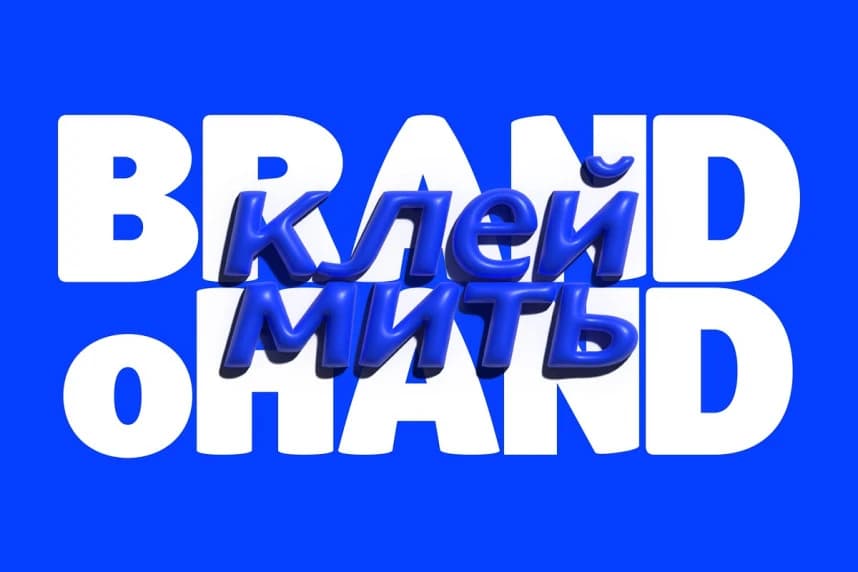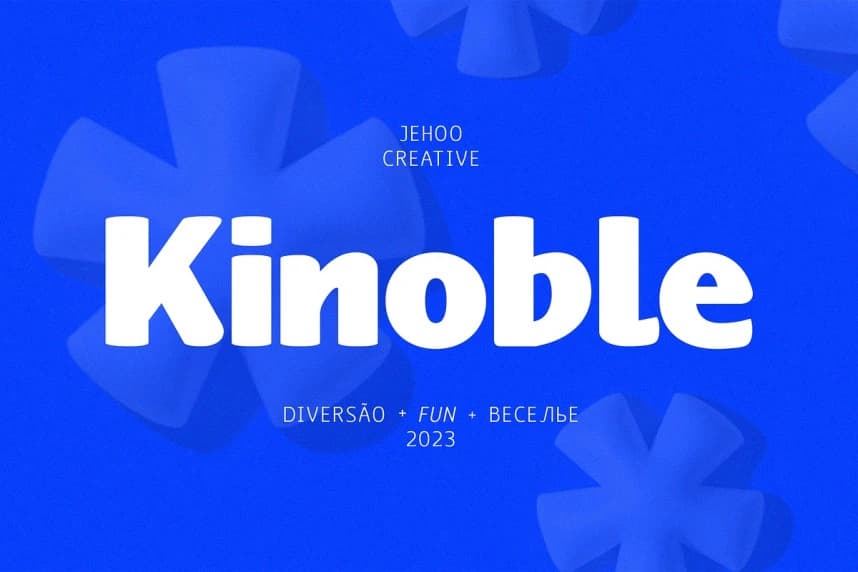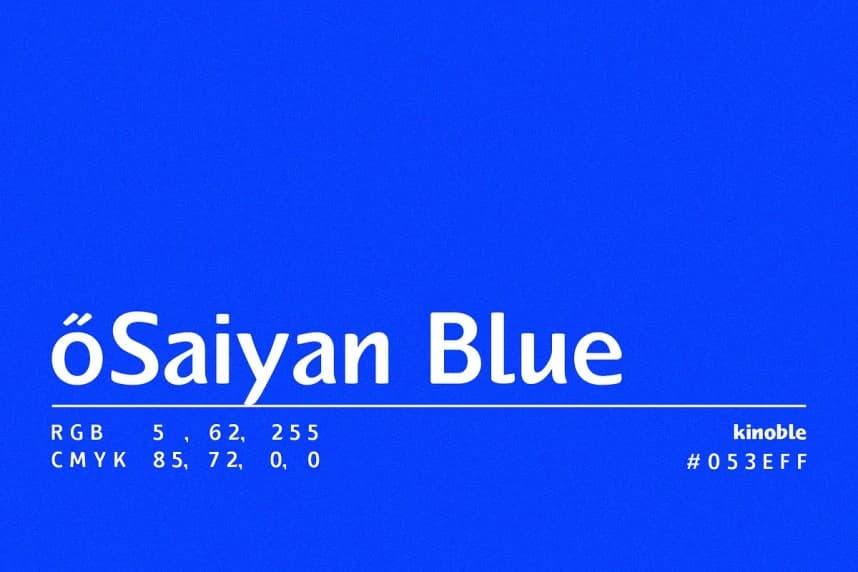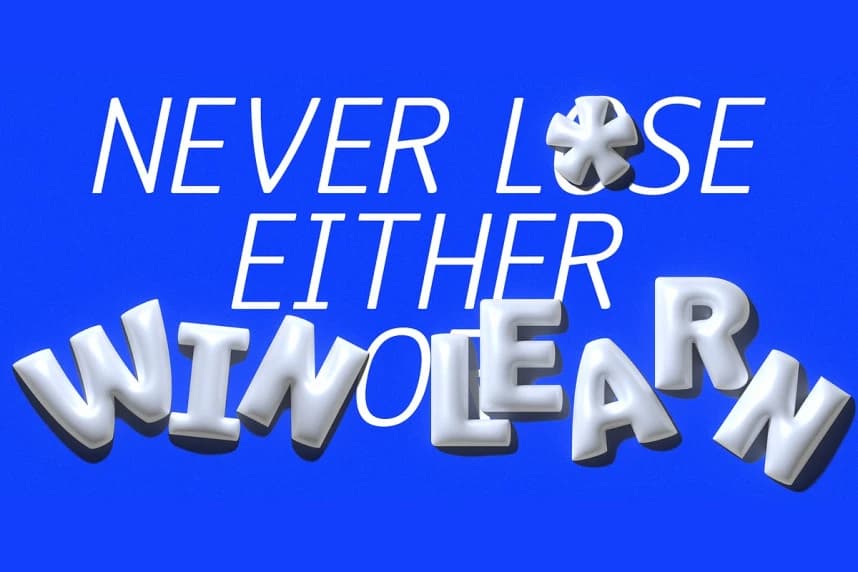
Kinoble Font is a font that combines the clean look of sans-serif with a touch of handwriting for a natural feel. It comes in different weights, from regular to black, and has an italic style for added variety.